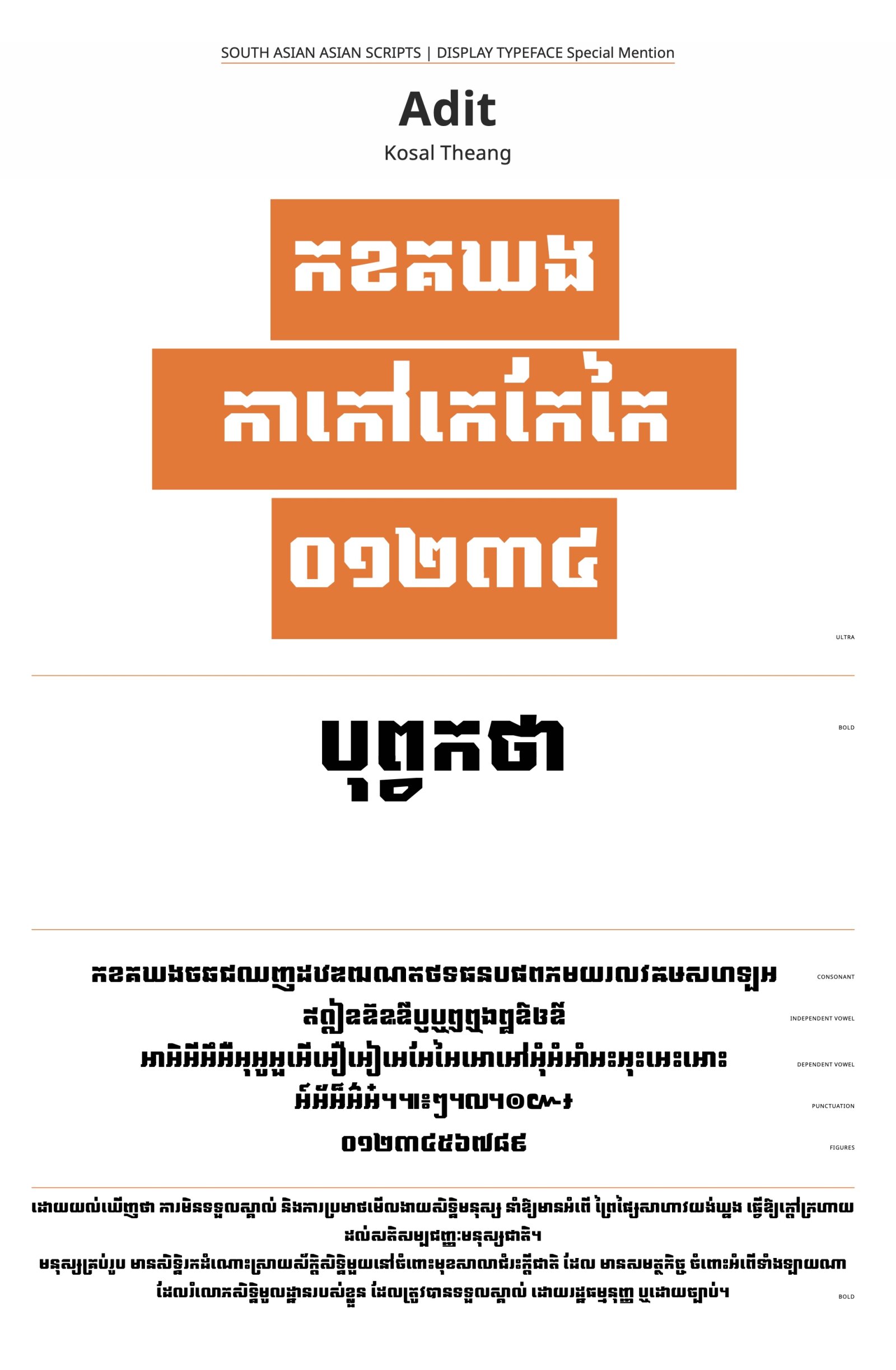
Adit
by Kosal Theang
Southeast Asian Scripts
In their attempt to keep pace with design trends, these fonts offer distinct results that resonate with local aesthetics. While they may not be groundbreaking in type design, they provide a fresh perspective within the evolving landscape of Khmer typography.
I designed it in terms of Slap Serif letterforms. Build from scratch with sketching on Paper and develop it into the whole script’s letterforms.